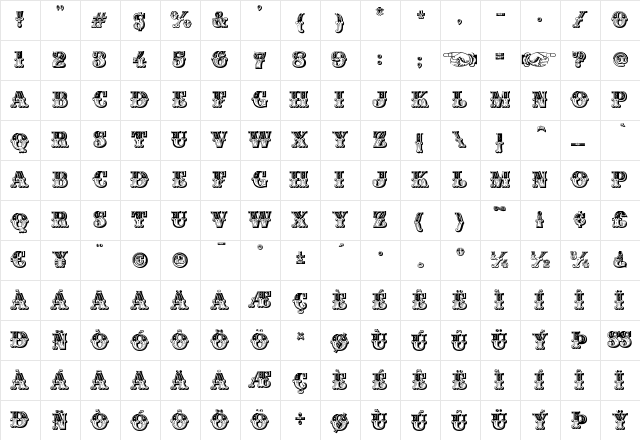
Gille Classic Regular
Design Context for Gille Classic Typeface
Gille Classic has the warm character of retro typography — evoking diners, record sleeves, and the golden age of print advertising.
Font Pairing: Combine Gille Classic with a simple slab or neutral sans — period-accurate companions reinforce the vintage feel without competing for attention.
Pro Tip: Lean into Gille Classic's period character by pairing it with aged paper textures, muted colour palettes, and vintage illustration styles.